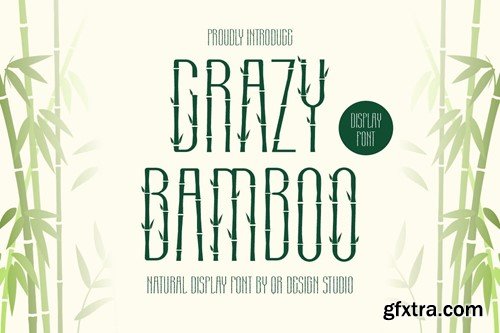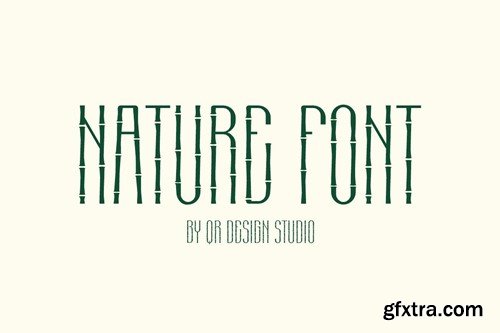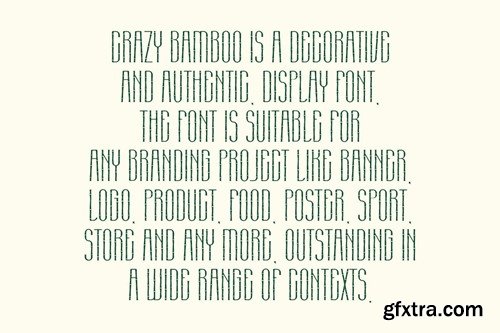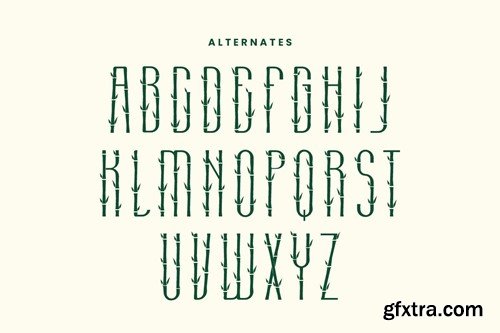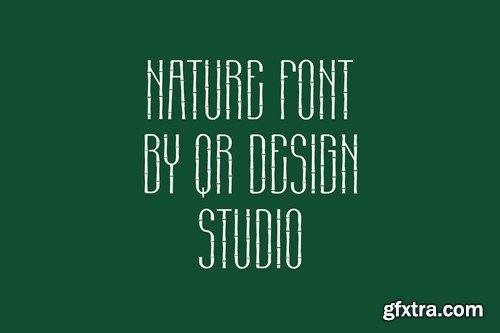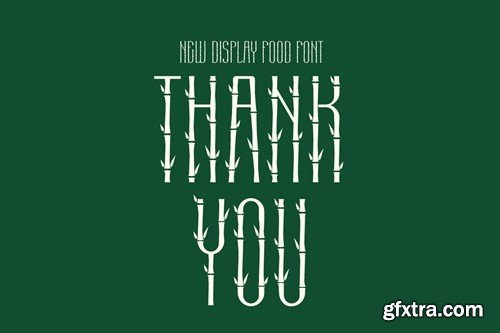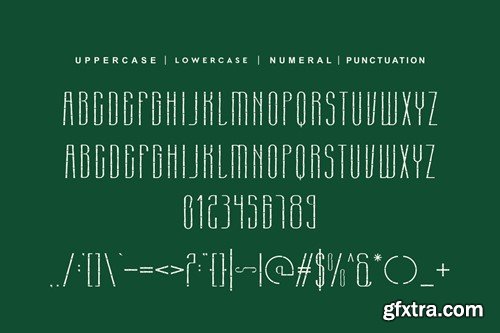
竹子的疯狂 - Nature Font F6WUBHD
Crazy Bamboo - Nature Font F6WUBHD
Crazy Bamboo - Nature Font
Crazy Bamboo - Nature Font is a decorative and authentic display font. The font is suitable for any branding project like poster, logo, sport, and many more. Outstanding in a wide range of contexts.